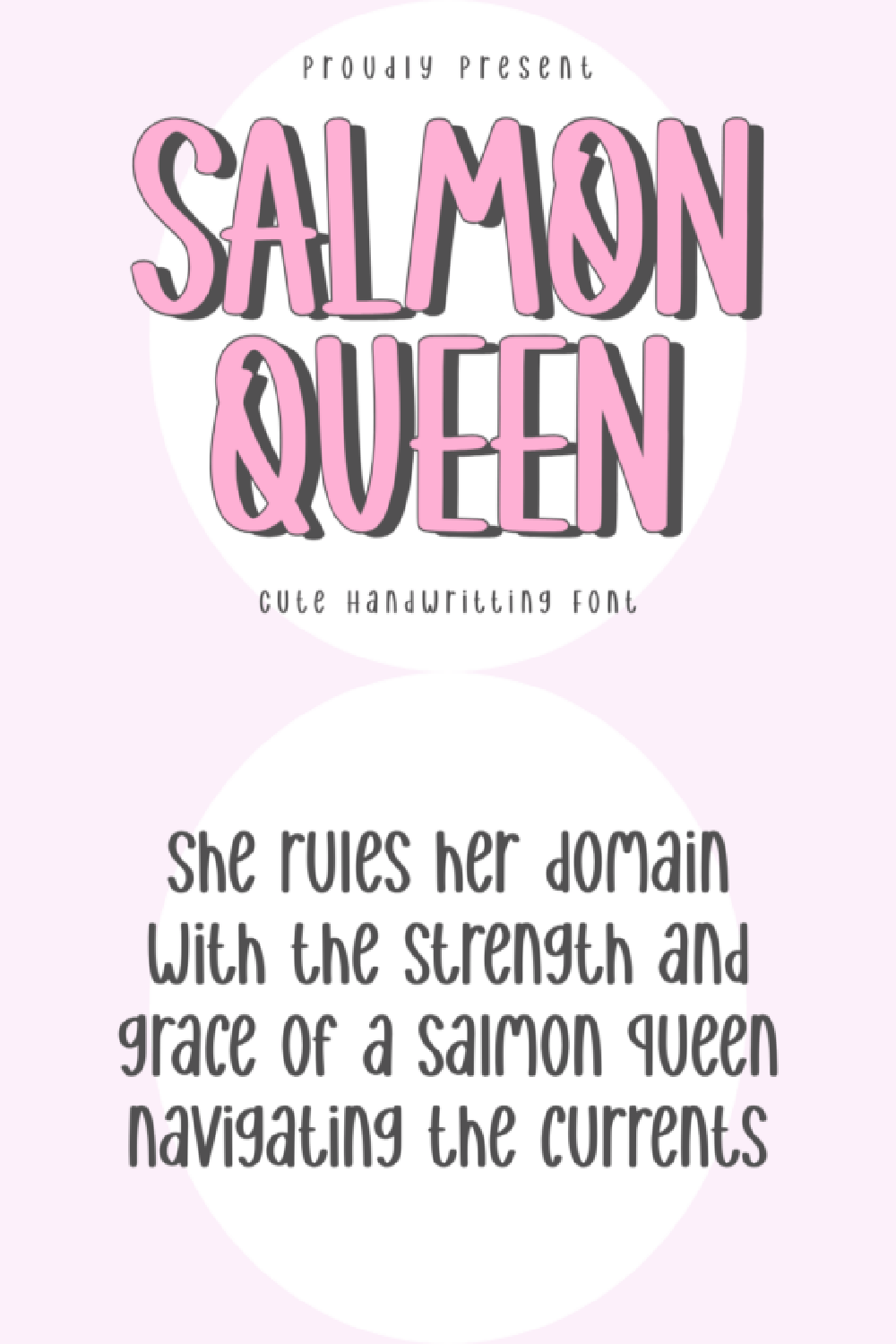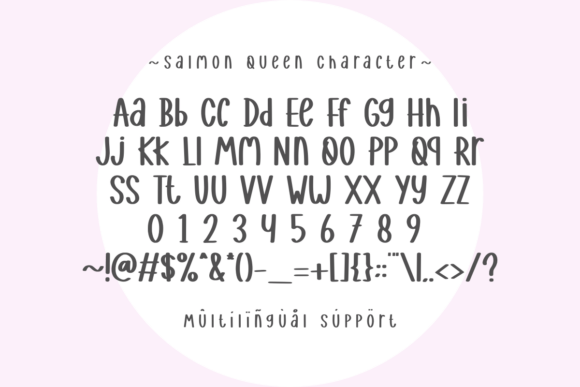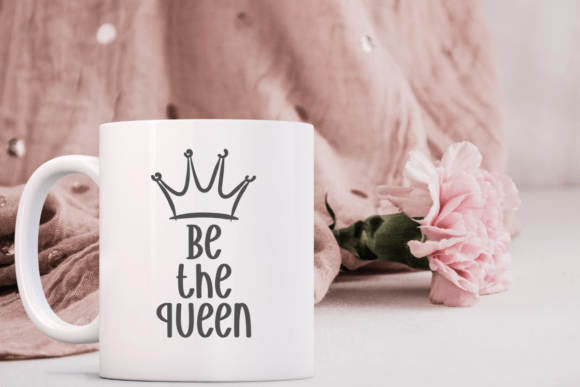
Salmon Queen Font: A Cute Handwritten Font for DIY & Cricut Projects
About the Salmon Queen Font
The Salmon Queen Font is here to transform your projects with its distinctive character and style. Salmon Queen is a cute and playful handwriting font, perfect for planners, stickers, cards, quotes, and craft projects. Ideal for creative moms who love DIY, journaling, and Cricut crafts!
Salmon Queen Font Usage Examples